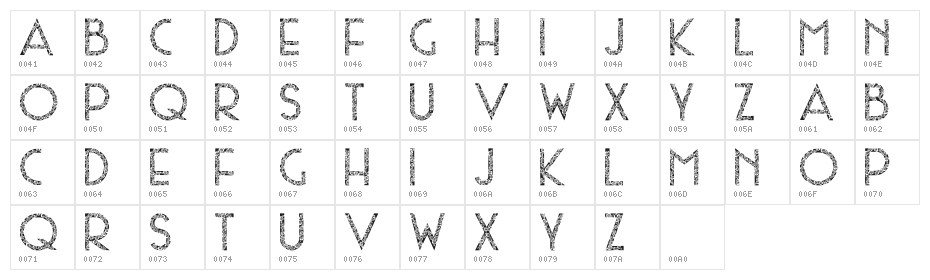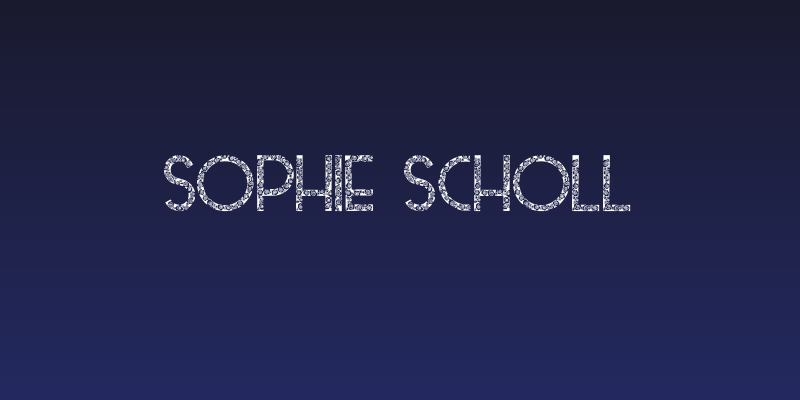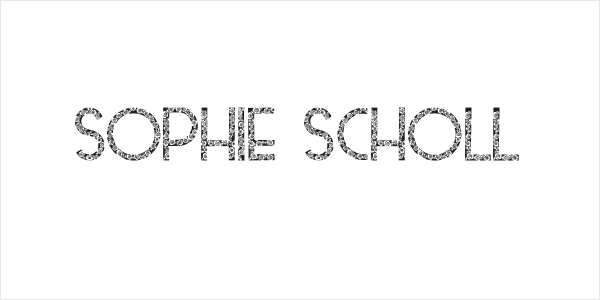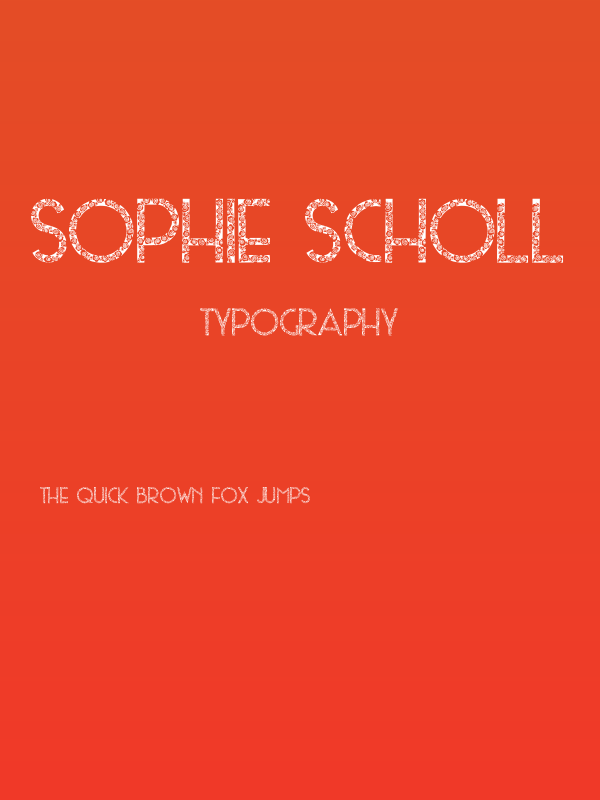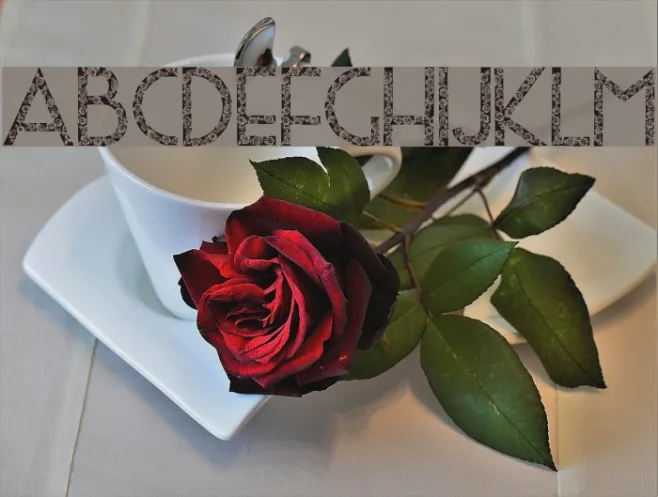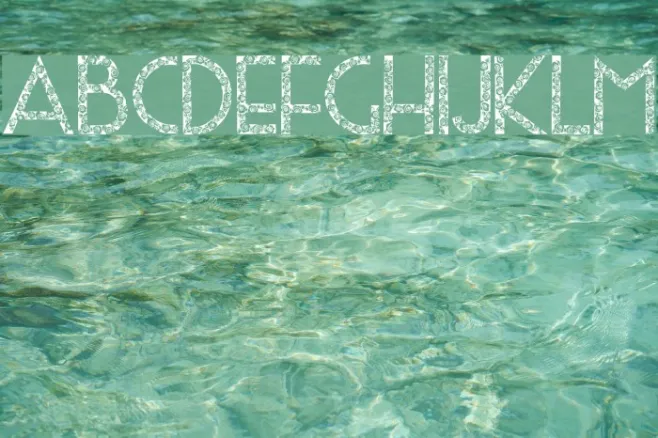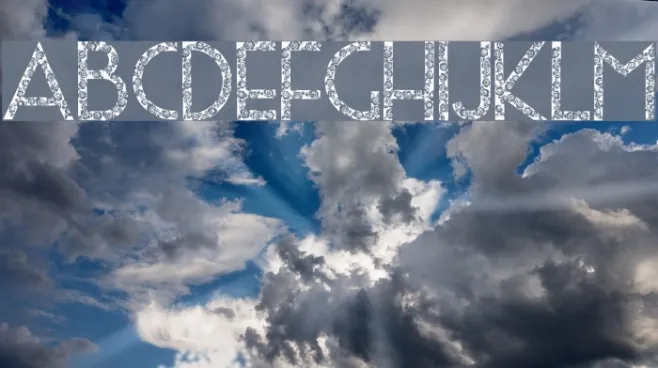
Sophie Scholl Font
Sophie Scholl Description
This font features an intricate and decorative design, with each letter adorned with a floral pattern that adds a unique and artistic flair. The uppercase letters are bold and prominent, making them ideal for attention-grabbing headlines or titles. The overall appearance is both elegant and playful, with a sense of whimsy due to the detailed embellishments. The font maintains a consistent style throughout, ensuring readability despite its ornate nature. It is well-suited for creative projects that require a touch of sophistication and artistic expression.